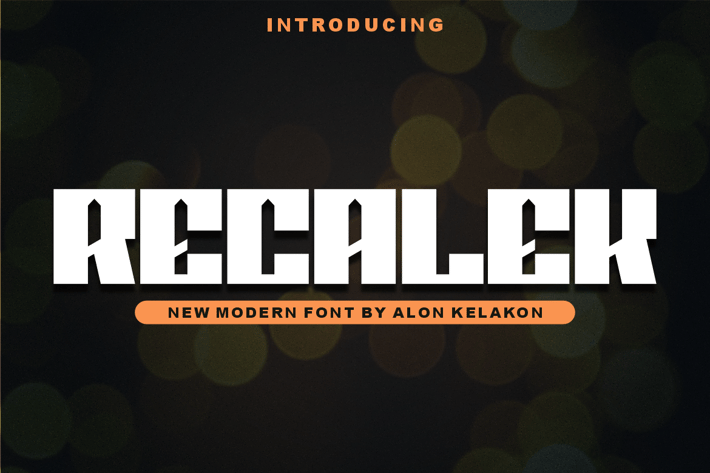
Recalek Font
Recalek- A New Modern Display Font
Introducing Recalek, a bold and powerful display font designed to make a statement. With its strong, geometric lines and sharp angles, Recalek is the perfect choice for projects that demand attention. Its modern and edgy aesthetic is great for creating a memorable and impactful impression.
This font is perfect for:
+ Logos and branding that need a futuristic or strong look.
+ Headlines and posters for music, gaming, or tech events.
+ Album art and merchandise designs.
+ T-shirt designs and other
Recalck comes with both uppercase and lowercase letters, numbers, punctuation, and multilingual support, giving you the versatility to create amazing designs.
Introducing Recalek, a bold and powerful display font designed to make a statement. With its strong, geometric lines and sharp angles, Recalek is the perfect choice for projects that demand attention. Its modern and edgy aesthetic is great for creating a memorable and impactful impression.
This font is perfect for:
+ Logos and branding that need a futuristic or strong look.
+ Headlines and posters for music, gaming, or tech events.
+ Album art and merchandise designs.
+ T-shirt designs and other
Recalck comes with both uppercase and lowercase letters, numbers, punctuation, and multilingual support, giving you the versatility to create amazing designs.